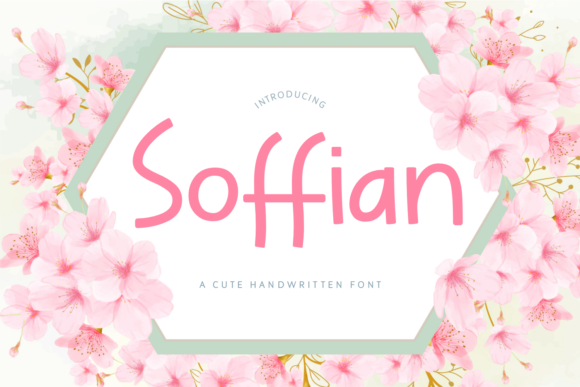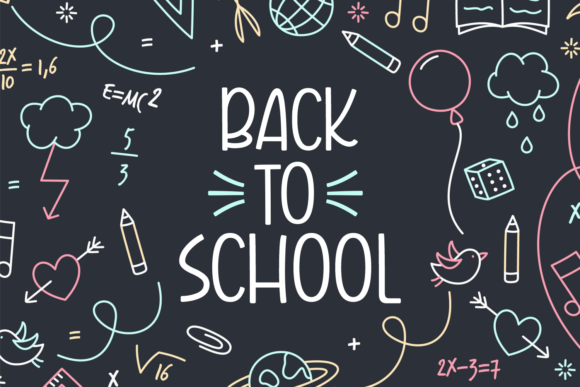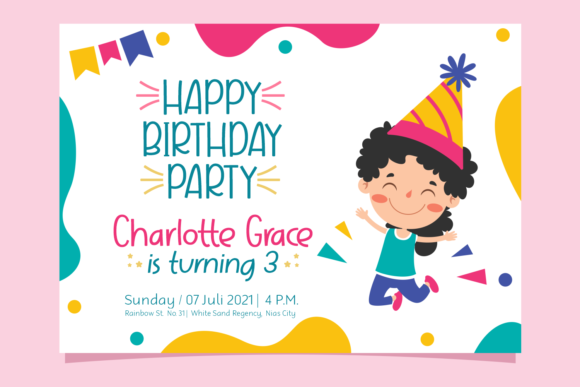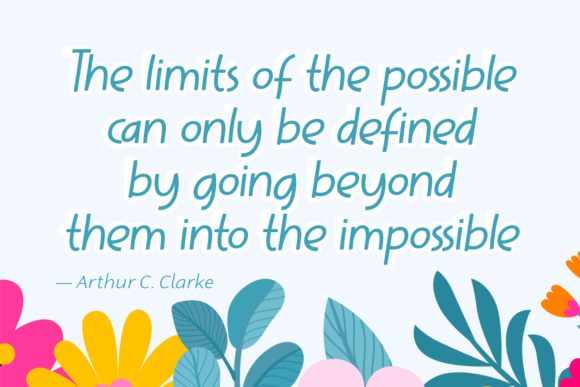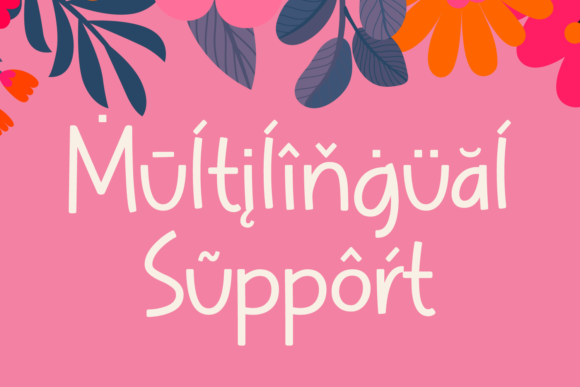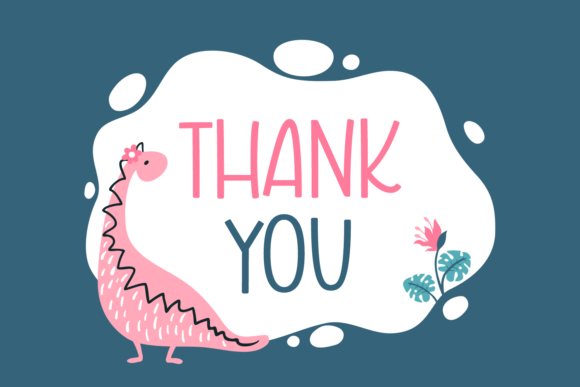
Soffian Font
About Soffian Font
Soffian is a cute and delicate script font that exudes elegance and class. This font was particularly crafted for those who need a beautiful and refreshing look to their designs.